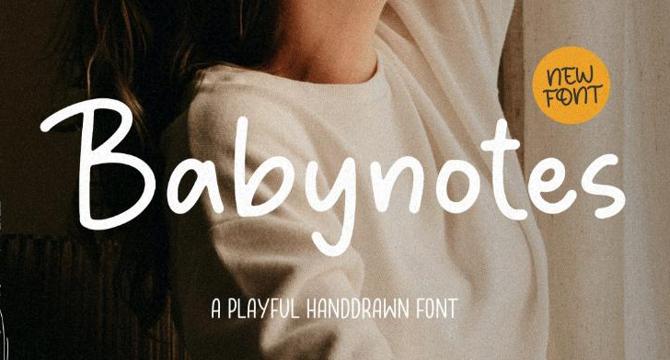
Babynotes is the free font of the day, offering a blend of playfulness and functionality in modern typography.
The handdrawn aesthetic, technical versatility, and broad applicability of Babynotes make it a valuable addition to any designer’s toolkit.
The font is suitable for children's materials, lifestyle branding, and creative projects, providing a way to add personality and warmth to digital and print communications.
Babynotes is a playful hand drawn font ideal for crafts, digital design, presentations, or greeting cards, with the potential to become a favorite go-to font for various occasions.